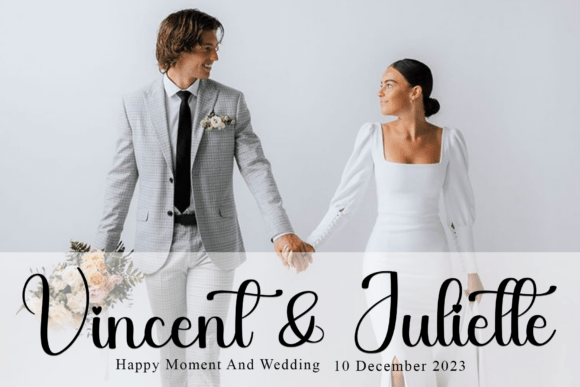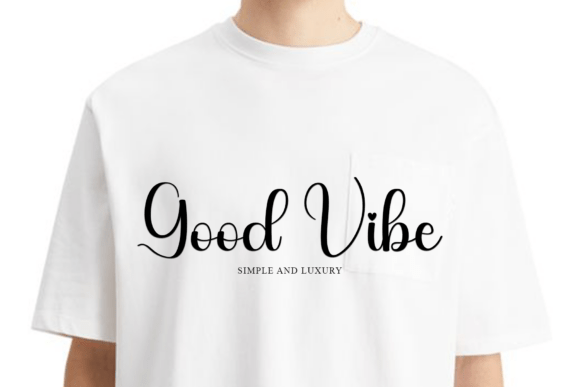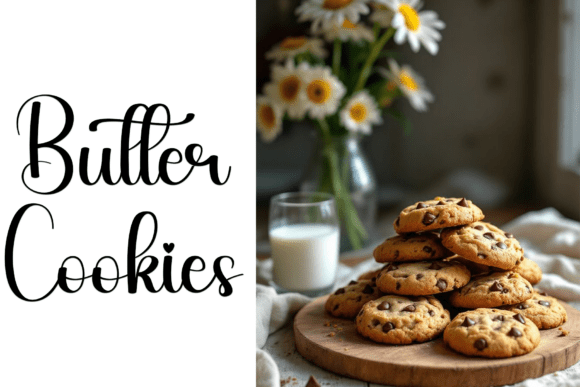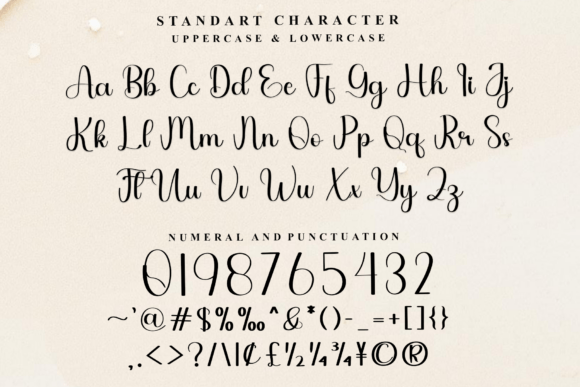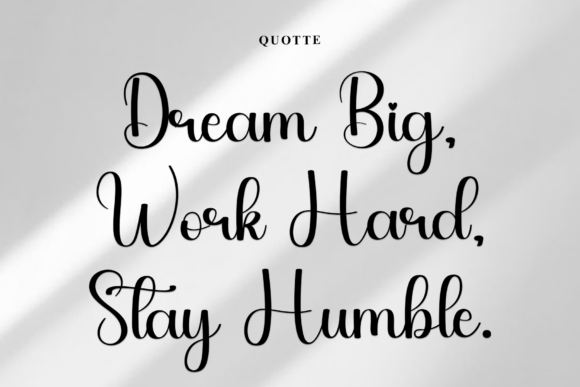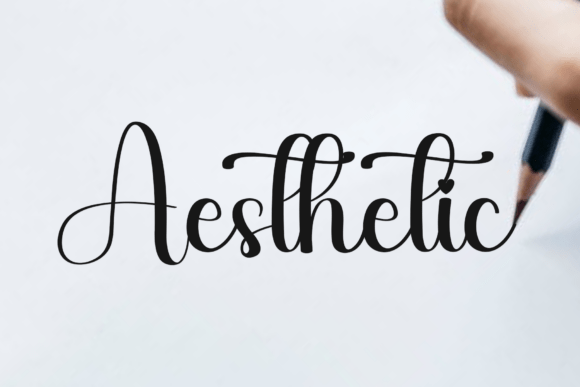
Get into the Holiday Spirit with the Brittany Signature Font
As the snowflakes start to fall and the twinkling lights adorn your home, the magic of the holiday season is in the air. It’s the perfect time to break out your favorite holiday decorations, bake some festive treats, and create special memories with loved ones. But what’s missing from your holiday design arsenal? A font that captures the whimsy and wonder of the season, of course!
Enter the Brittany Signature Font, a delightful typeface that adds a touch of enchantment to your designs. Perfect for greeting cards, gift tags, and holiday-themed projects, this font brings a cheerful and nostalgic ambiance to your words. With its decorative elements and whimsical flair, it’s the perfect addition to any holiday design project. Whether you’re a seasoned designer or a holiday enthusiast, the Brittany Signature Font is sure to bring a smile to your face and a touch of magic to your typography.
Brittany Signature Font Key Features
- Unique Characteristics: This elegant script font features connected letters, beautiful swashes, and intricate flourishes, making it perfect for creating stylish and sophisticated designs.
- Script and Swashes: The font includes a variety of script and swash options, allowing you to add a personal touch to your designs and create unique, handwritten effects.
Brittany Signature Font Review
I recently had the chance to work with the Brittany Signature Font, and I wanted to share my honest thoughts on it. Overall, I was impressed with the font’s unique charm and elegance.
- Unique design: The Brittany Signature Font has a distinct, cursive style that’s perfect for adding a touch of sophistication to your designs.
- Legibility: Despite its intricate design, the font is surprisingly easy to read, making it suitable for both body text and headings.
- Variety of weights: The font comes in multiple weights, allowing you to customize the look and feel of your designs.
- Compatibility issues: I experienced some compatibility issues with older versions of Adobe Creative Cloud, which may be a concern for some designers.
- Lack of bold options: While the font has multiple weights, I found that the bold options are somewhat limited, which may not be ideal for designs that require a more dramatic effect.
While the Brittany Signature Font has some limitations, its unique design and elegant feel make it a great choice for designers looking to add a touch of sophistication to their projects. With a bit of experimentation, I was able to overcome the compatibility issues and achieve the desired look.
Tips for Getting the Most Out of the Brittany Signature Font
Here are a few tips to help you get the most out of the Brittany Signature Font:
- Use the font in combination with other elegant fonts for a sophisticated look.
- Use the font in conjunction with graphics and images to add depth to your design.